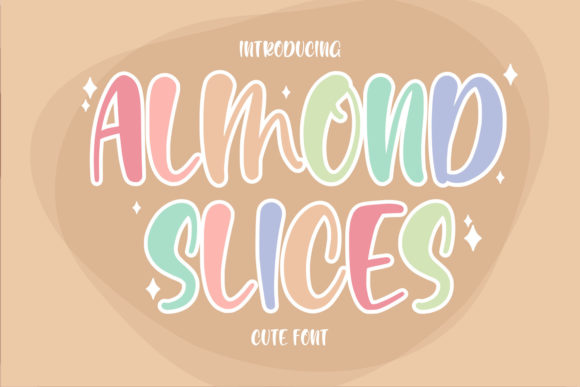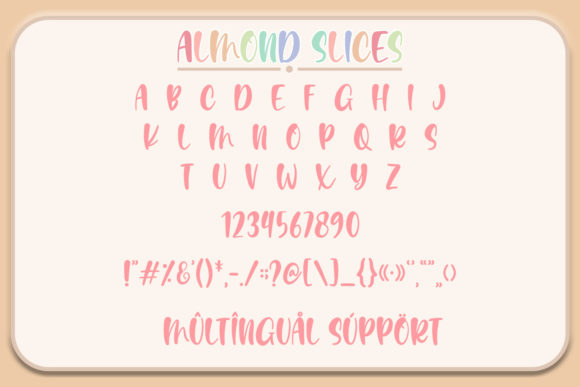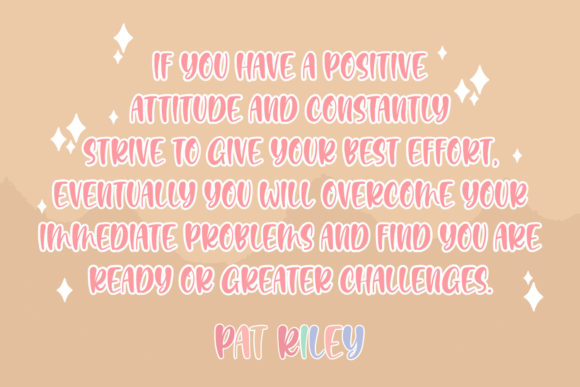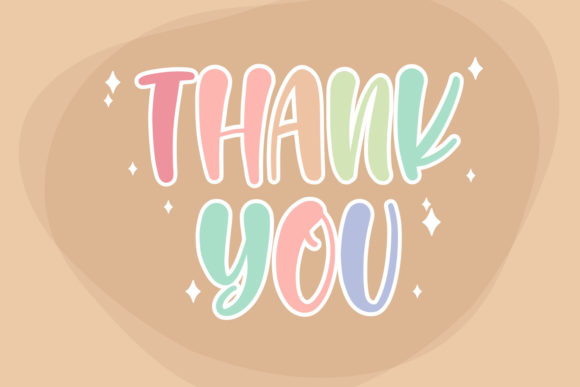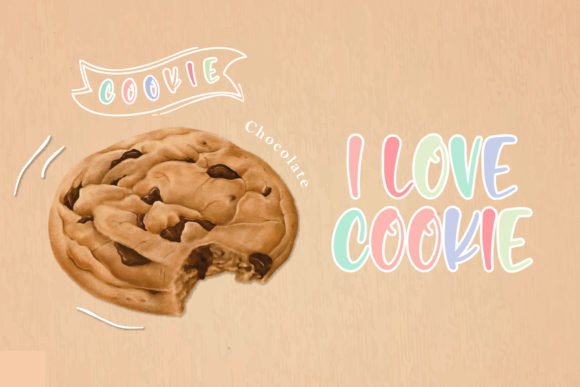
Almond Slices Font
About Almond Slices Font
Almond Slices is a cool, charming and fun handwritten font. It embodies playfulness and authenticity and is the perfect choice for any children activity or school project.